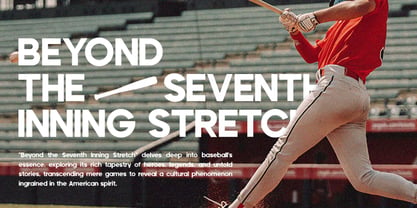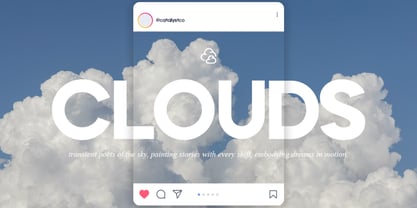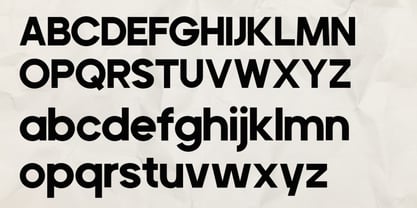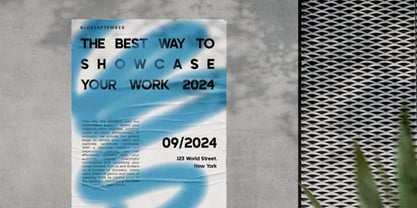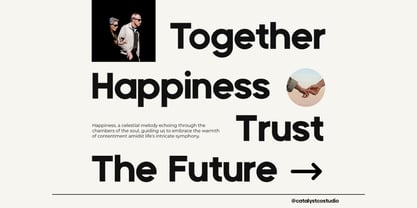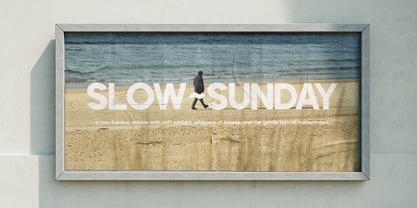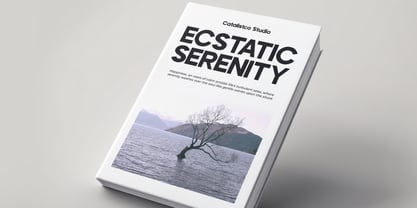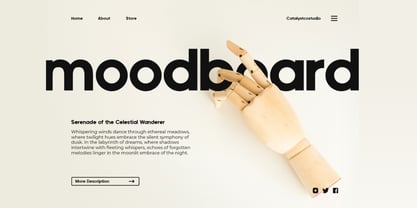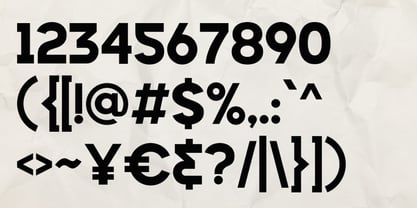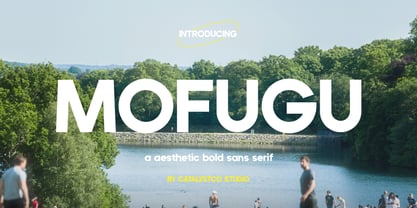
Mofugu
by Catalystco Std
The Mofugu Font Family was designed by and published by Catalystco Std. Mofugu contains 1 styles. More about this family
Mofugu is a bold modern sans serif typeface built with strong geometric proportions, smooth curves, and confident letterforms that create a clean yet expressive visual presence. Designed with balanced spacing, thick strokes, and minimal detailing. This typeface brings a modern and confident tone that fits contemporary branding and clean visual communication. It works especially well for posters, websites, editorial headlines, social media graphics, packaging, lookbooks, and creative marketing materials where bold clarity and stylish minimalism are required.